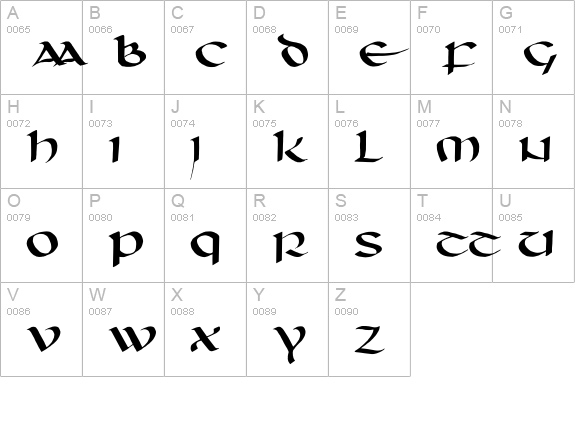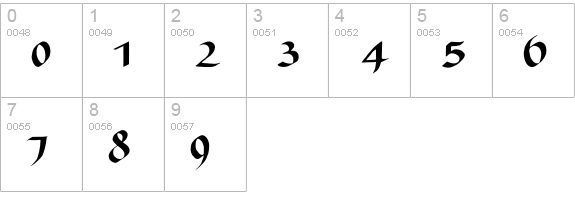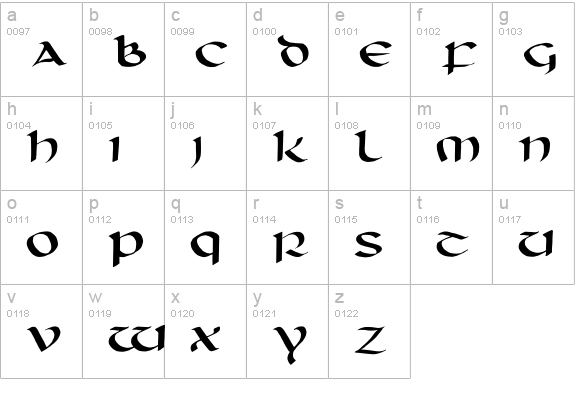
unciaal Font Details
The Unciaal font is a captivating and unique typeface that exudes a sense of elegance and charm. Inspired by medieval calligraphy, this font features beautifully intricate letterforms with elongated and gracefully curved strokes. With its distinctive style, Unciaal font adds a touch of sophistication to any design project. Whether used for invitations, posters, logos, or headings, it effortlessly captures attention and creates a sense of grandeur. One of the most appealing aspects of the Unciaal font is that it is free. Yes, you read that right! This stunning typeface is freely available to download at FontsMarket.com. Now you can add a touch of timeless beauty to your designs without breaking the bank. Downloading the Unciaal font from FontsMarket.com is quick and easy. Simply visit the website, locate the font, and click the download button. In just a few moments, you'll have access to this exclusive typeface that will elevate your projects to new heights. Whether you're a professional graphic designer or a creative hobbyist, the Unciaal font is a must-have in your font library. Its versatility, elegance, and the fact that it is free make it an irresistible choice for any design endeavor. So why wait? Download the Unciaal font from FontsMarket.com today and let your creativity soar. Discover the beauty and power of this exquisite typeface, and make your designs truly stand out.